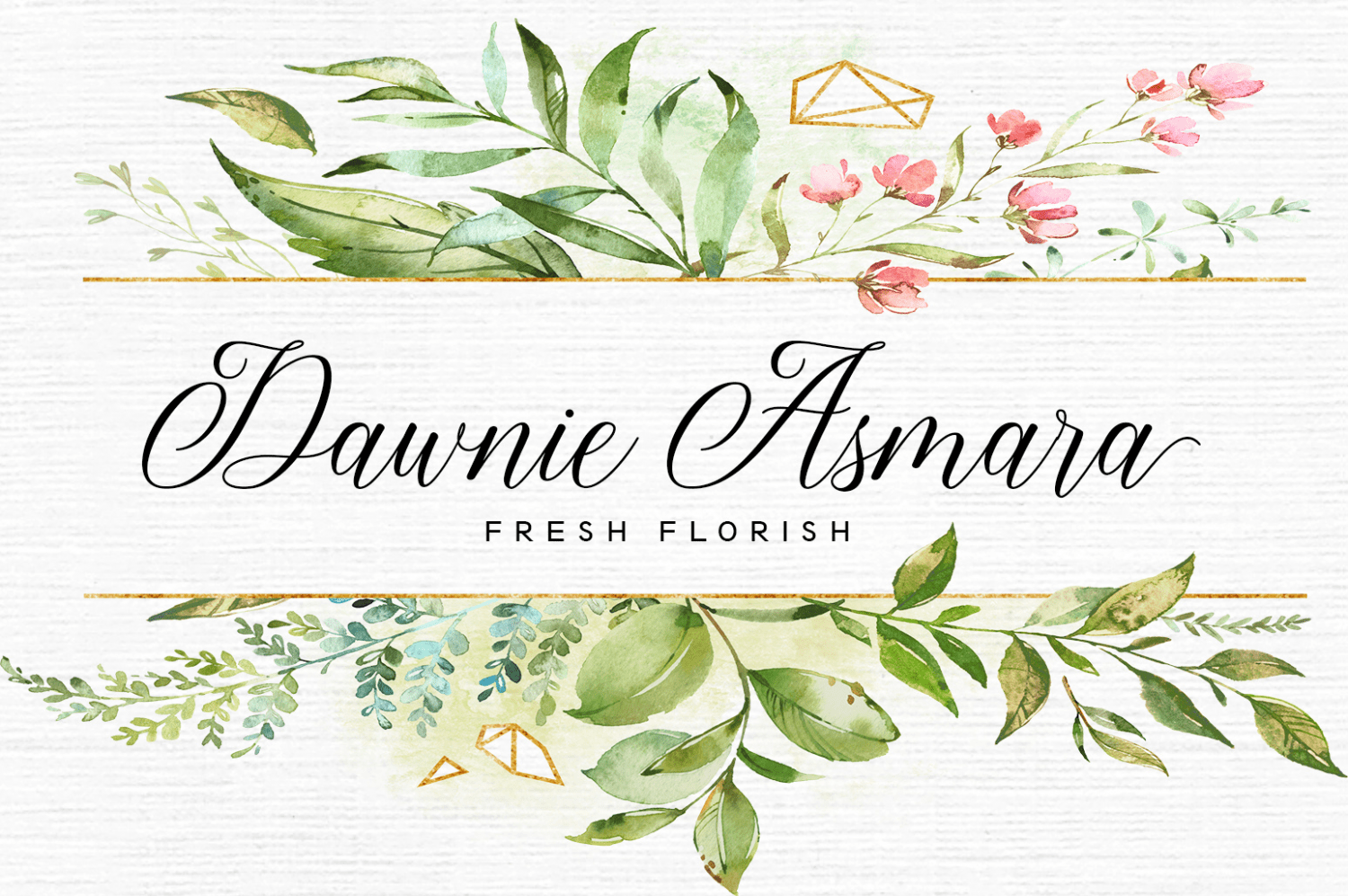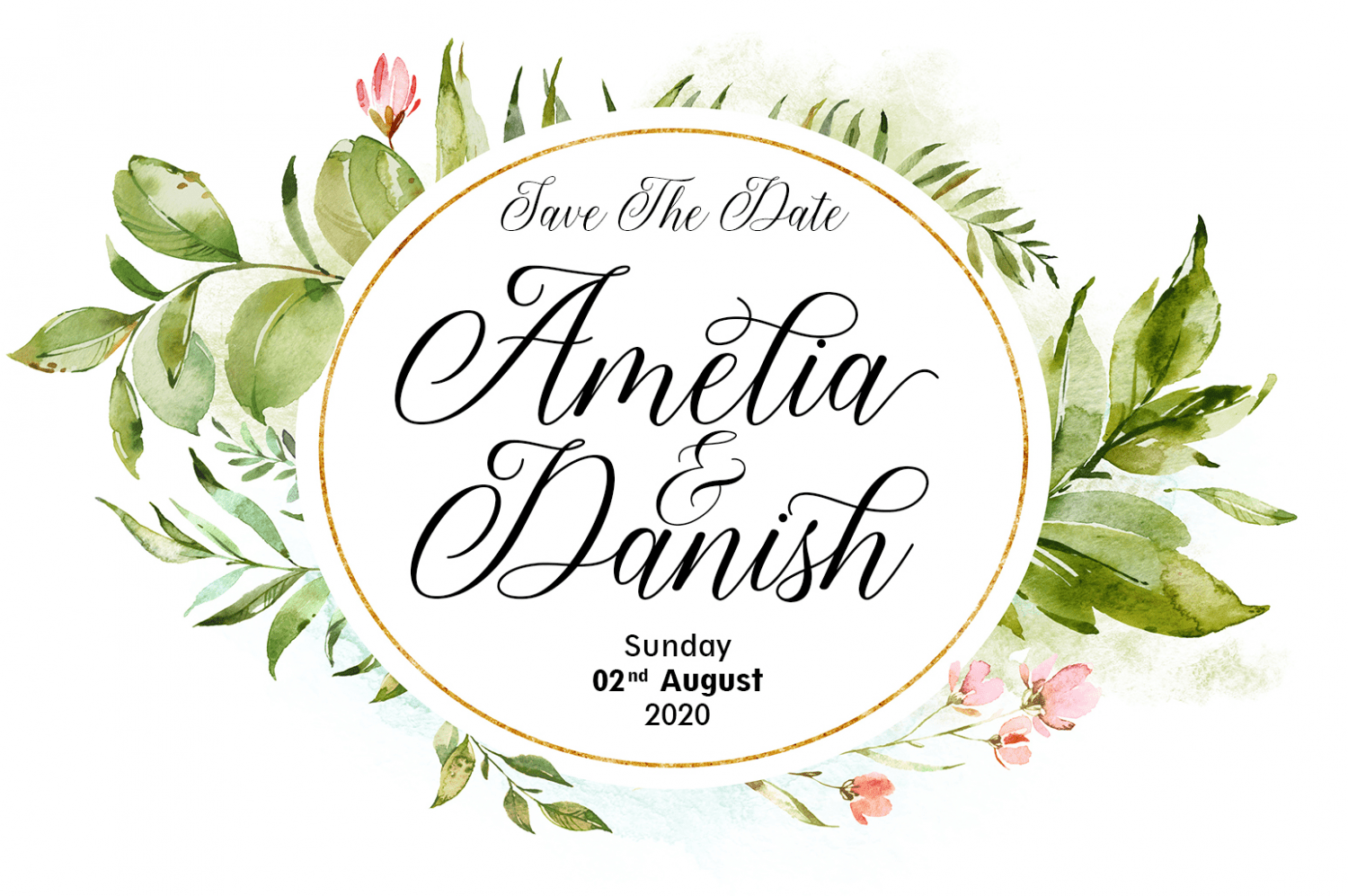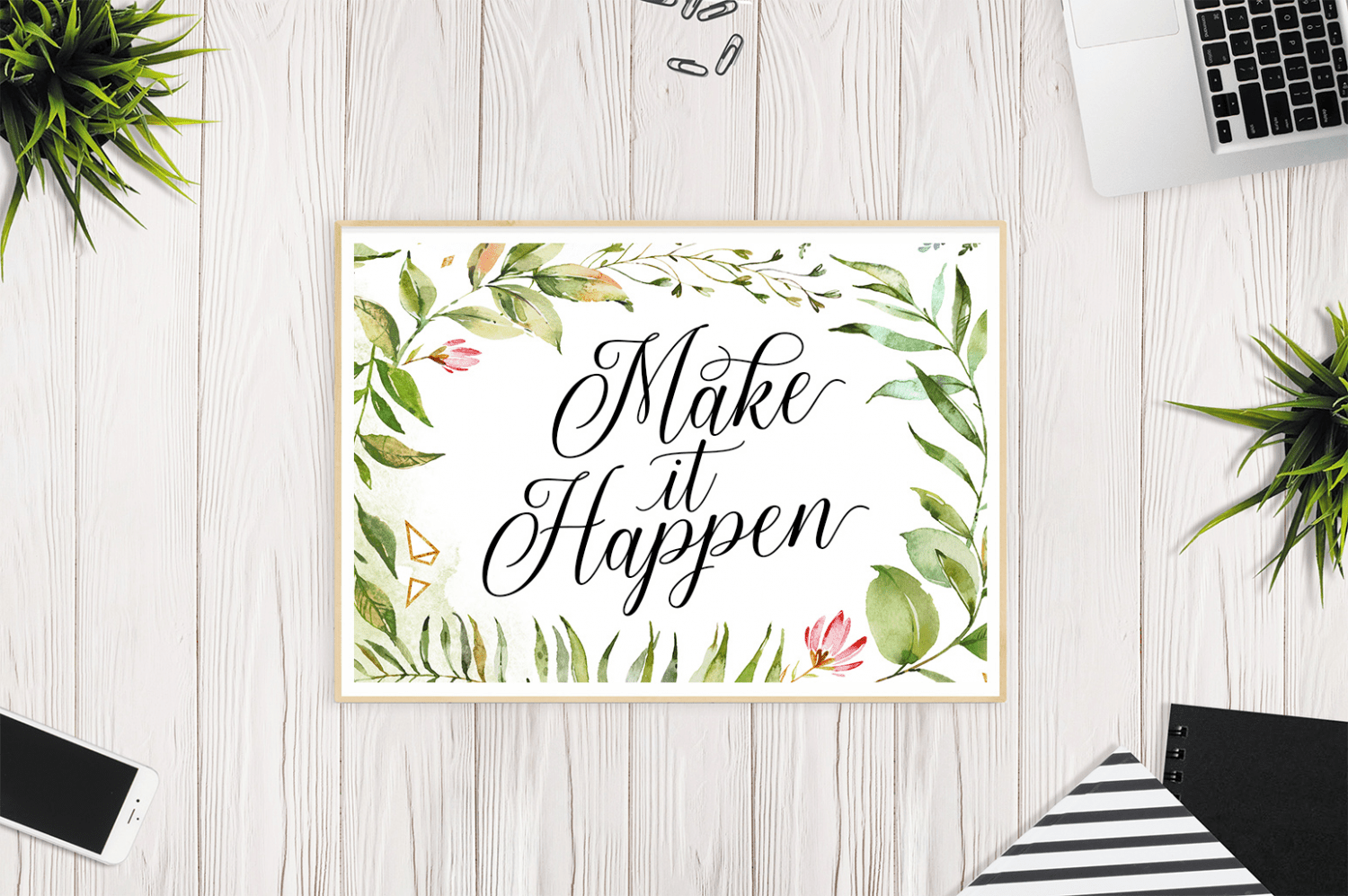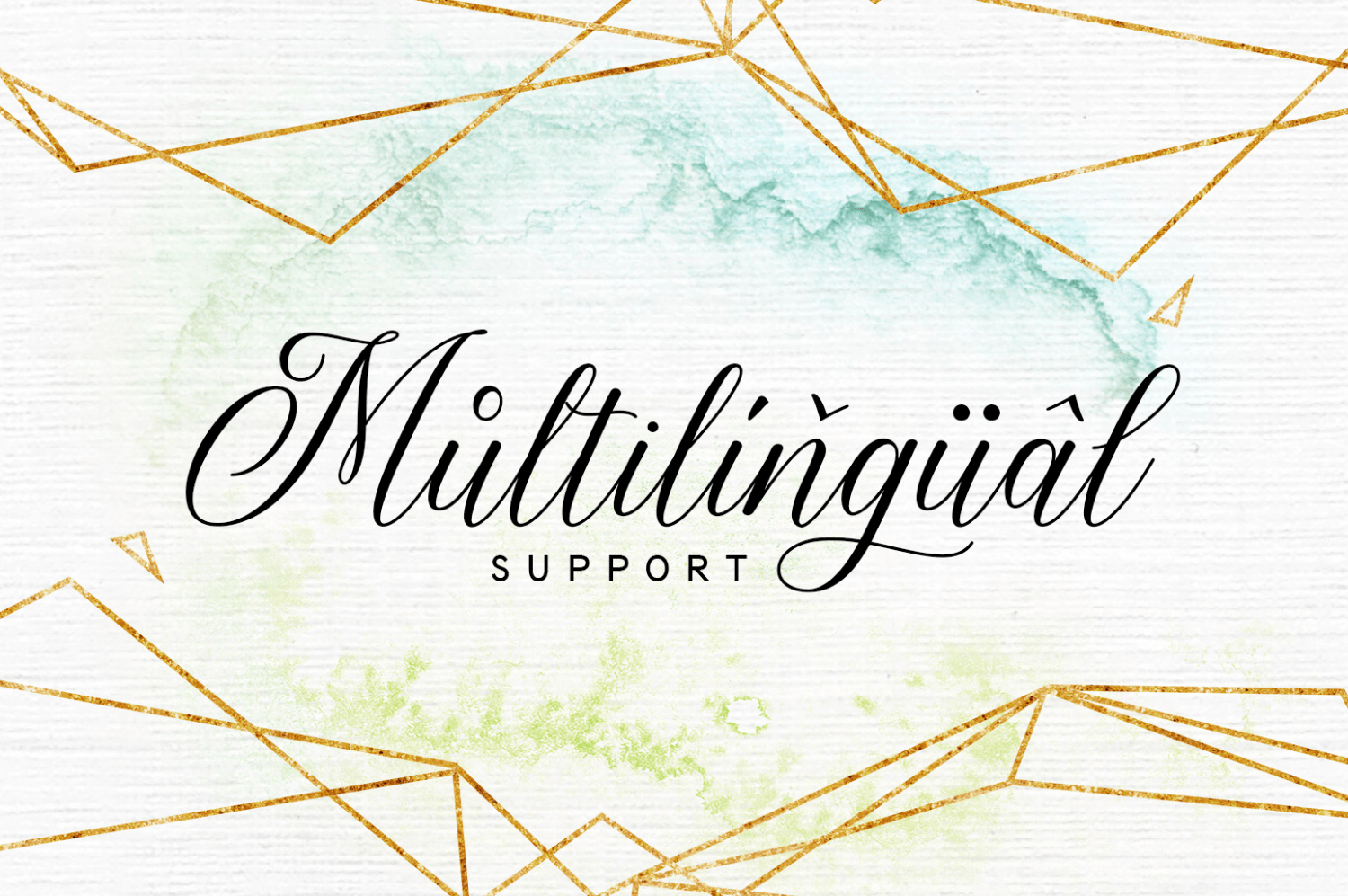
About Brithney Script
Brithney Script – a new fresh & modern calligraphy style, decorative characters and a dancing baseline! So beautiful on invitation like greeting cards, branding materials, business cards, quotes, posters, and more design concept! The included alternative…